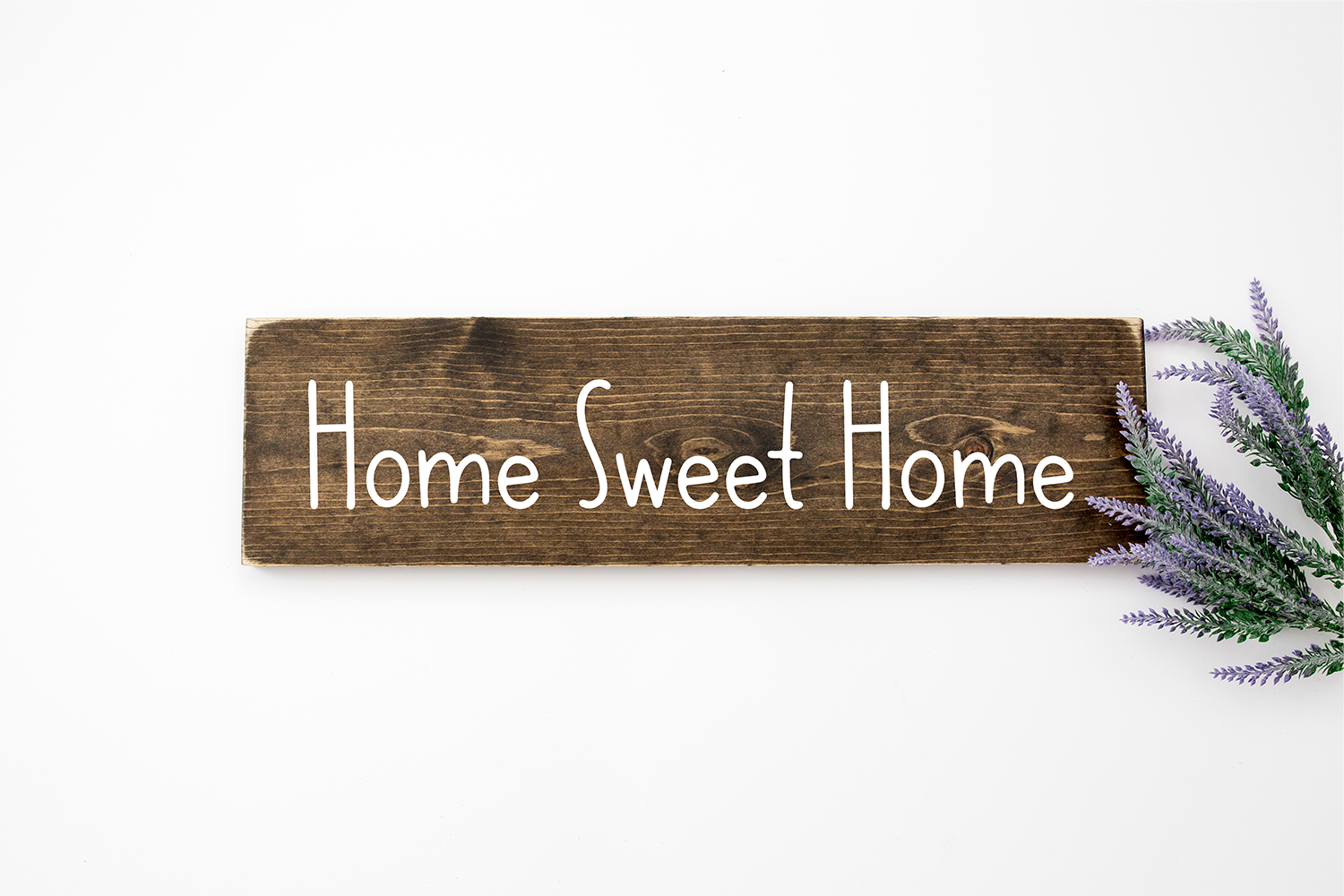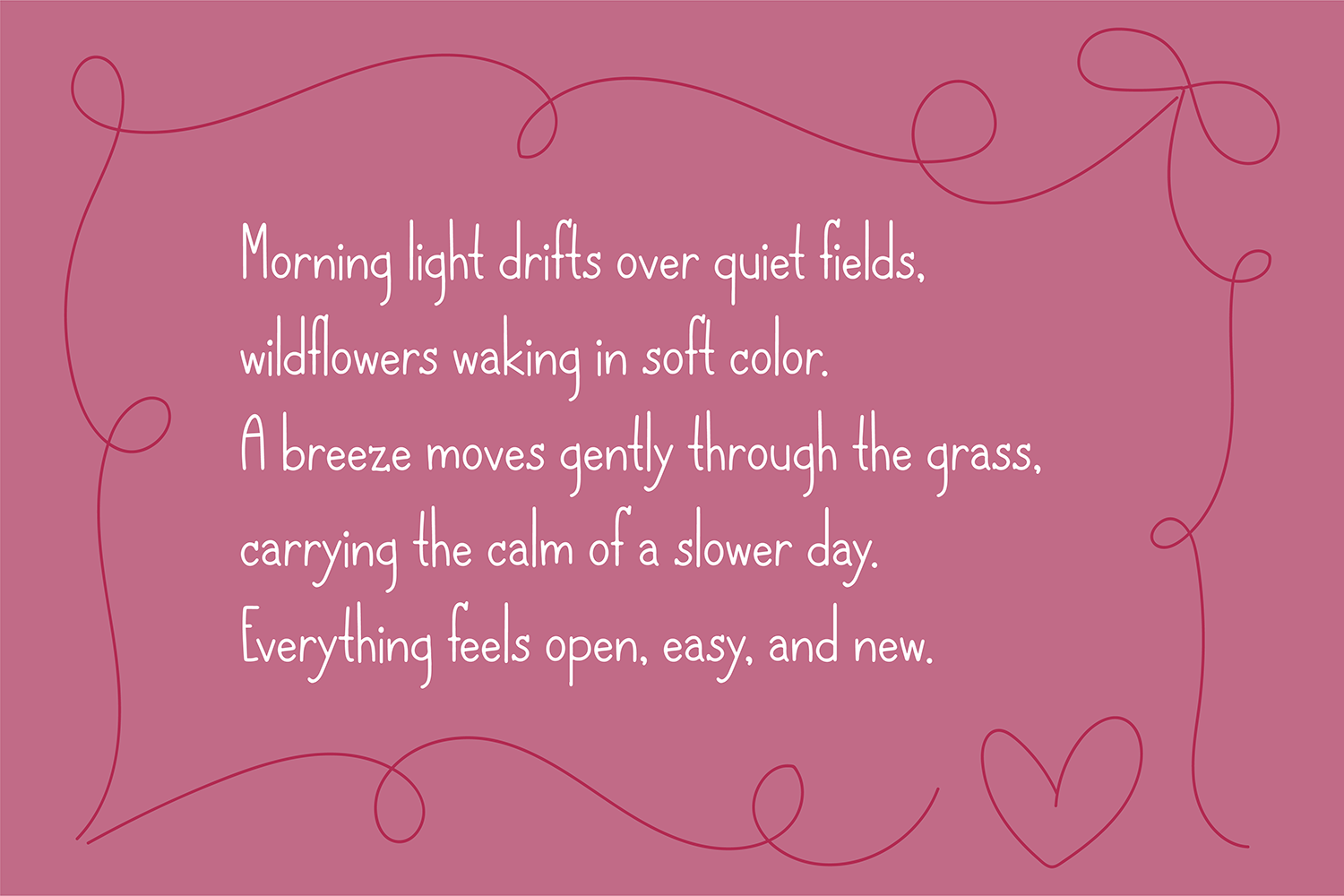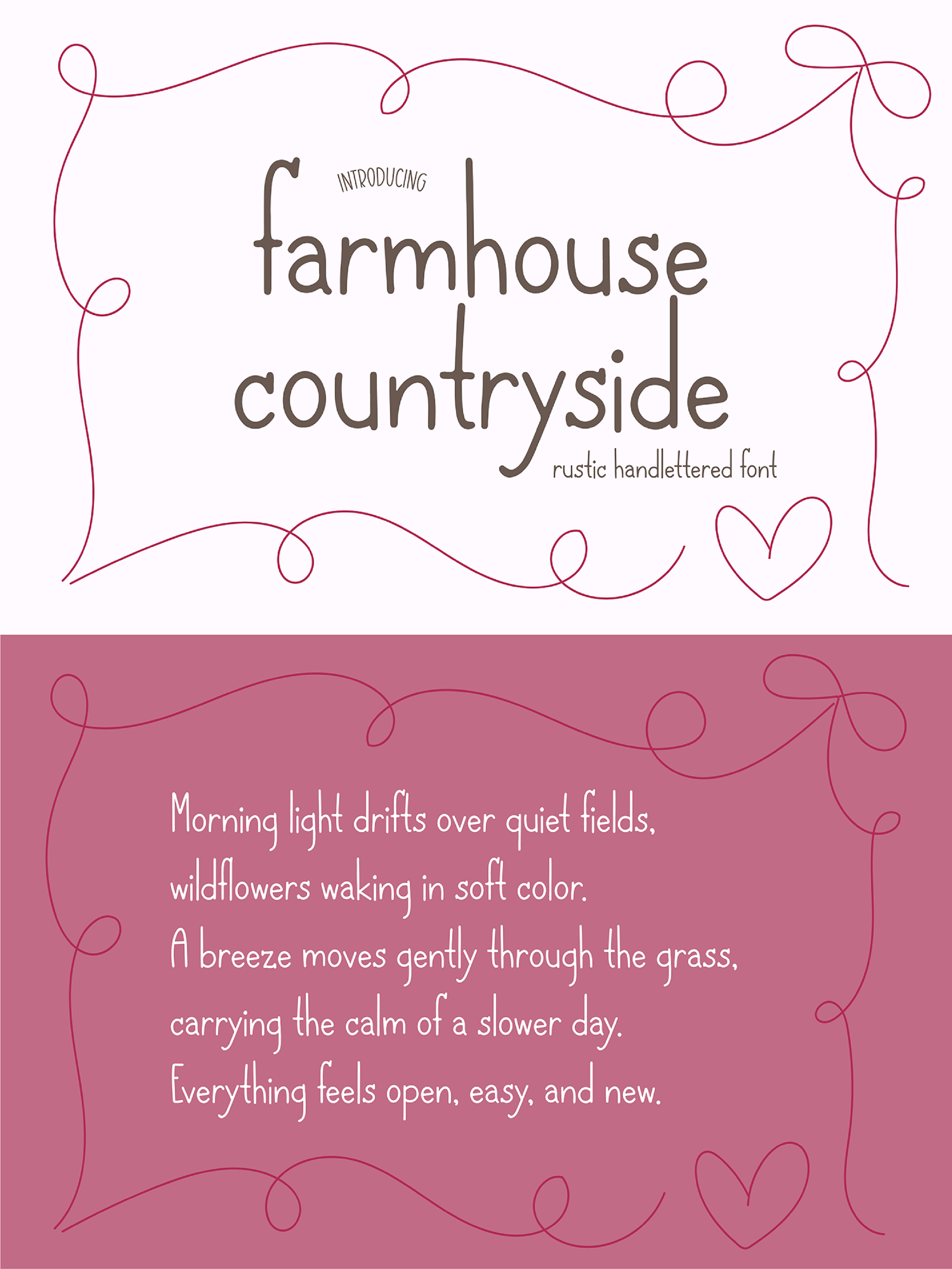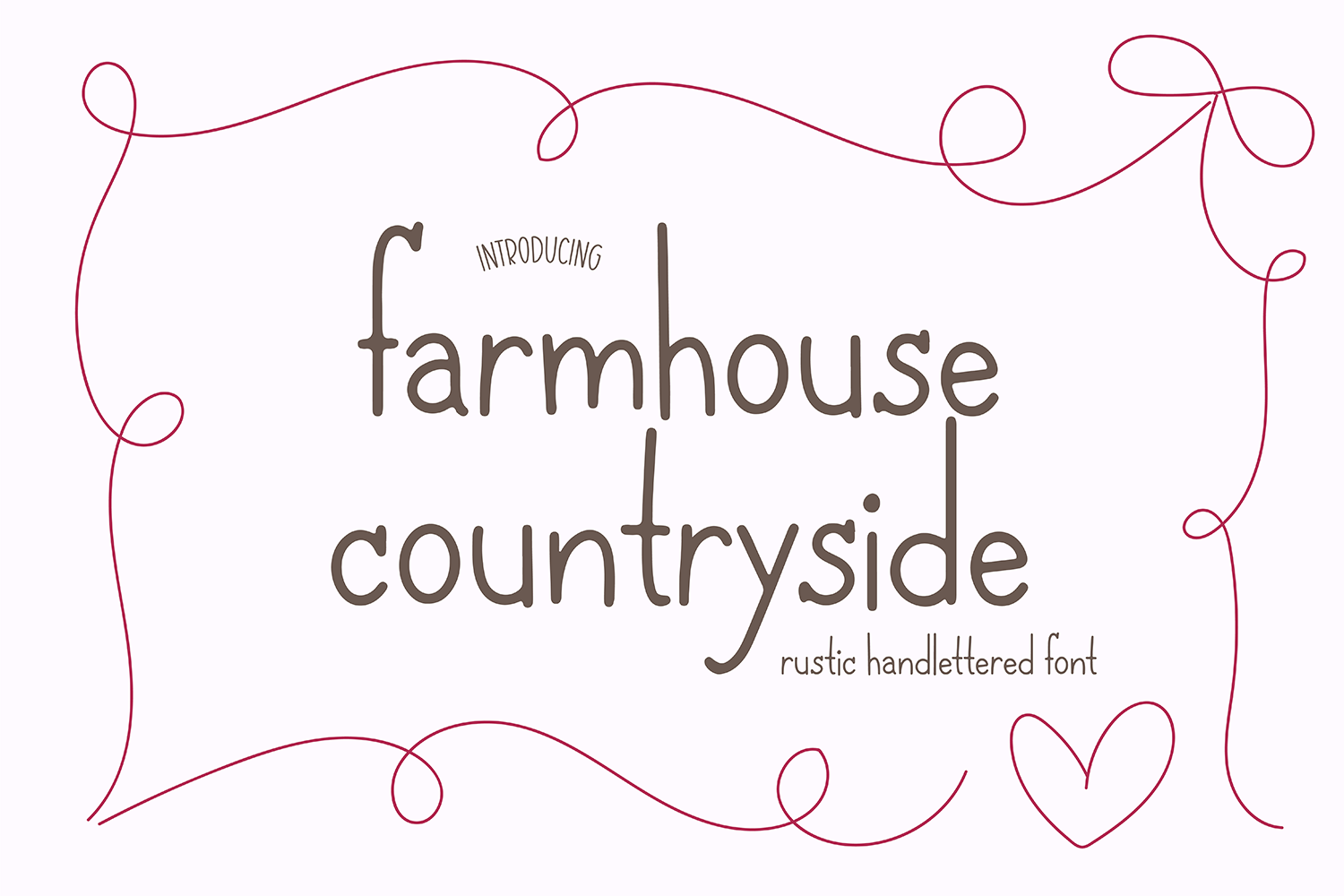
"Farmhouse Countryside"
A cute handwriting serif font. This font is great for note-taking, digital planners, Goodnotes, and rustic fall projects.
This font comes with upper and lowercase glyphs, numbers, and basic punctuation.